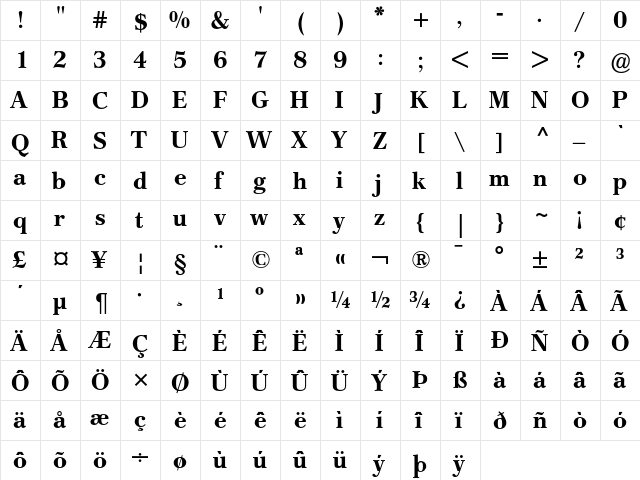
Cremona Bold
Design Context for Cremona Typeface
Cremona is a composed and adaptable typeface that performs quietly and consistently across a wide range of design contexts. The heavy weight commands attention and anchors typographic hierarchies.
Pro Tip: Pair Cremona with a font of contrasting weight or personality to build a more expressive typographic hierarchy.